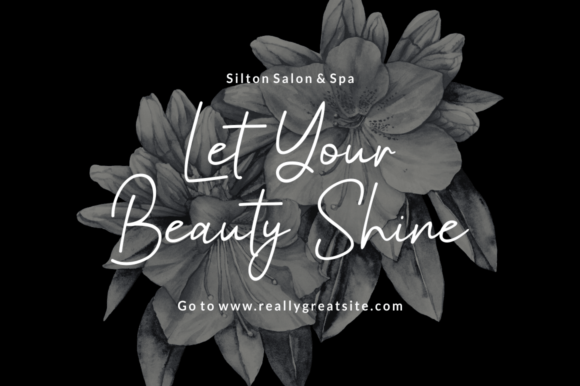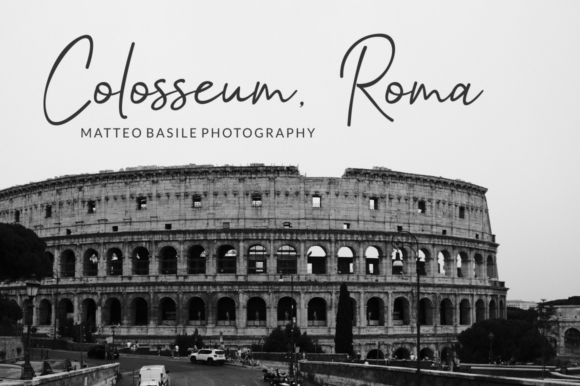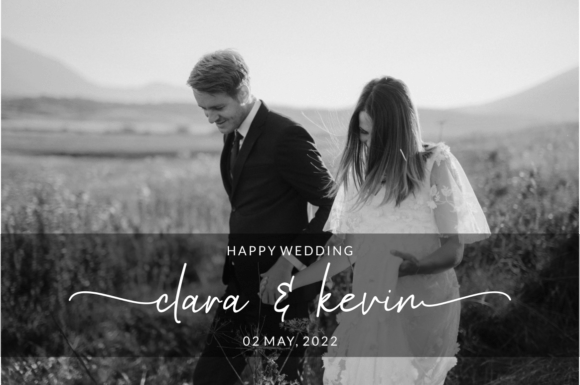
Vittagon Font
About Vittagon Font
“Vittagon” is a classic and simple handwritten font that adds a touch of elegance to a variety of designs. With its timeless and straightforward style, this font is particularly well-suited for projects requiring a personalized touch. Applications include wedding invitations, thank you cards, greeting cards, logos, and more.
The classic nature of “Vittagon” ensures that it maintains a sense of sophistication and timelessness. Its simplicity adds a clean and uncluttered look, making it versatile for a range of design contexts.
When used in wedding invitations or related materials, “Vittagon” can bring a refined and personalized feel. In thank you cards or greeting cards, its simplicity contributes to a warm and genuine aesthetic. As a logo font, it can add a touch of authenticity to your brand identity.
The personalized style of “Vittagon” makes it adaptable to various design needs, allowing it to enhance the overall aesthetic of your projects. Its legibility and clean lines make it suitable for both print and digital media, ensuring consistency across different platforms.
In summary, “Vittagon” is a font that exudes classic simplicity, making it an excellent choice for projects that require a personalized and elegant touch. Whether used for formal invitations or branding materials, this font adds a timeless quality to your designs.